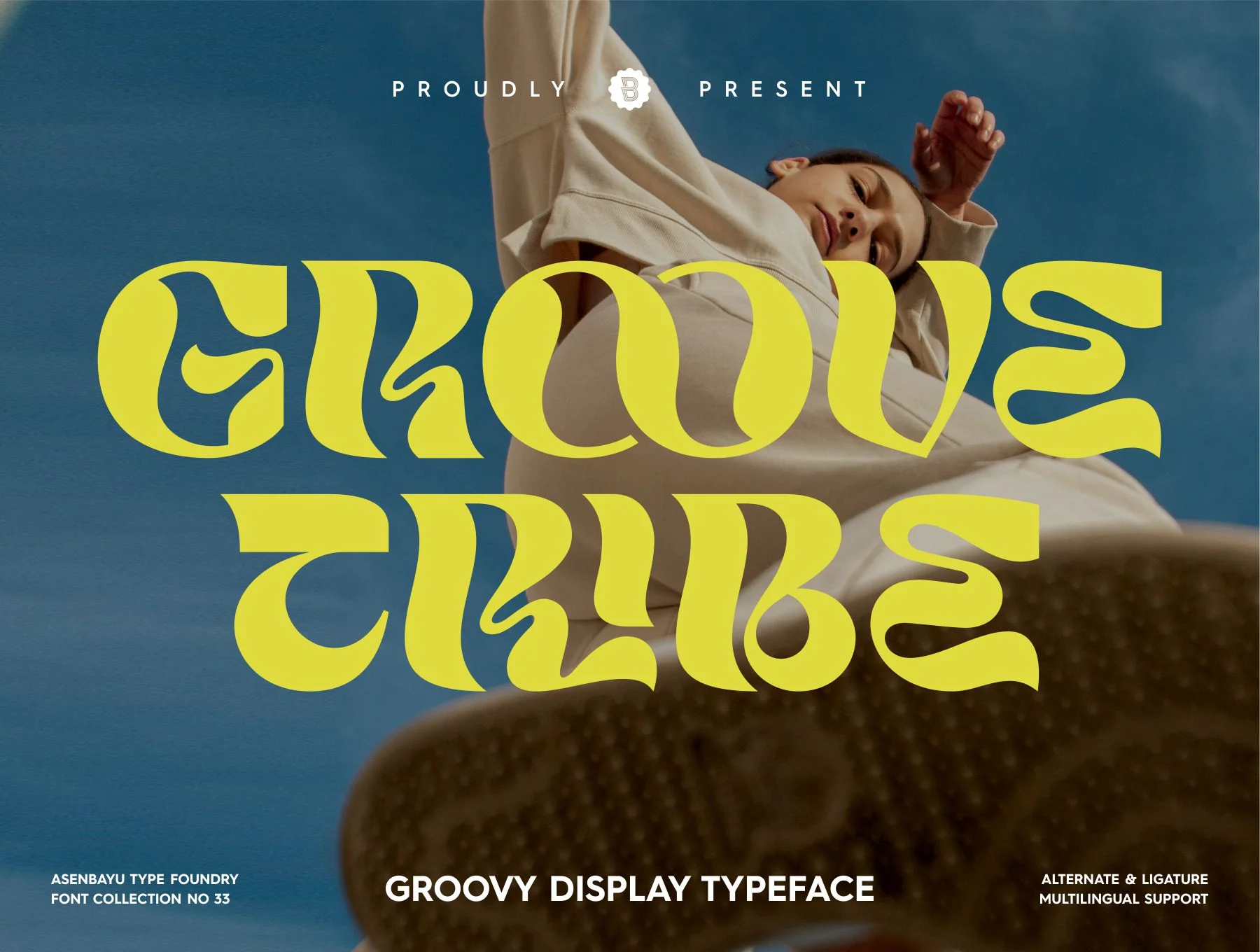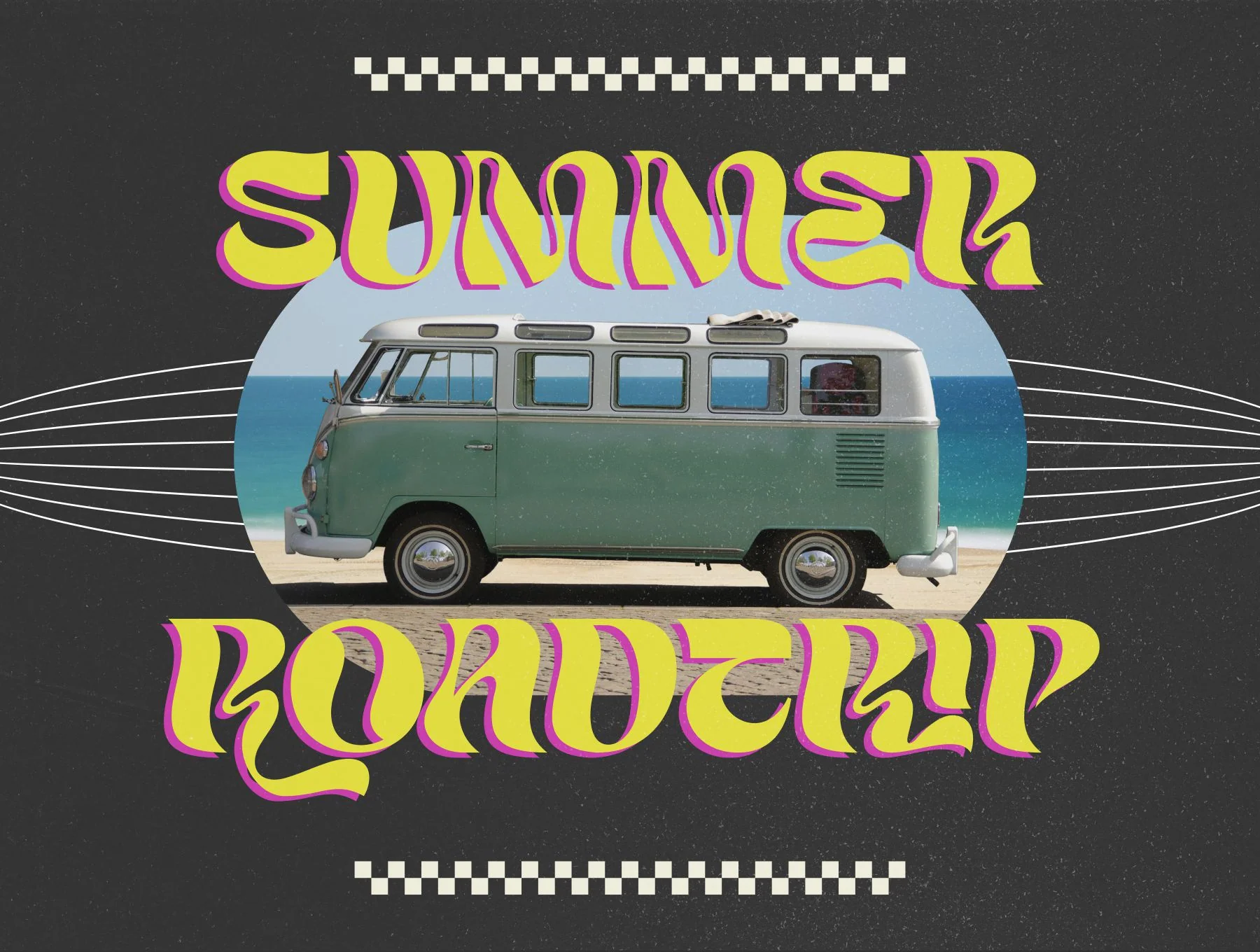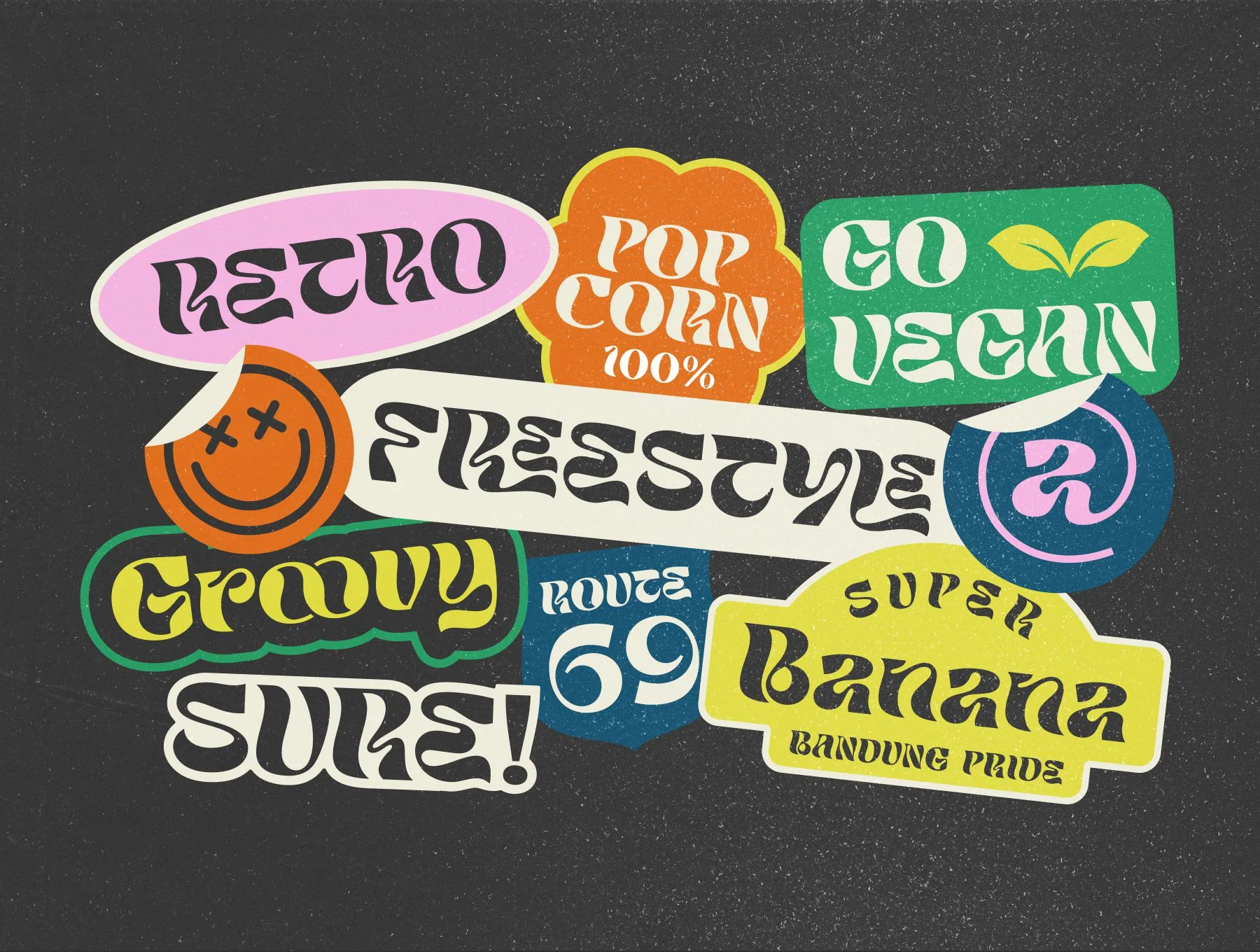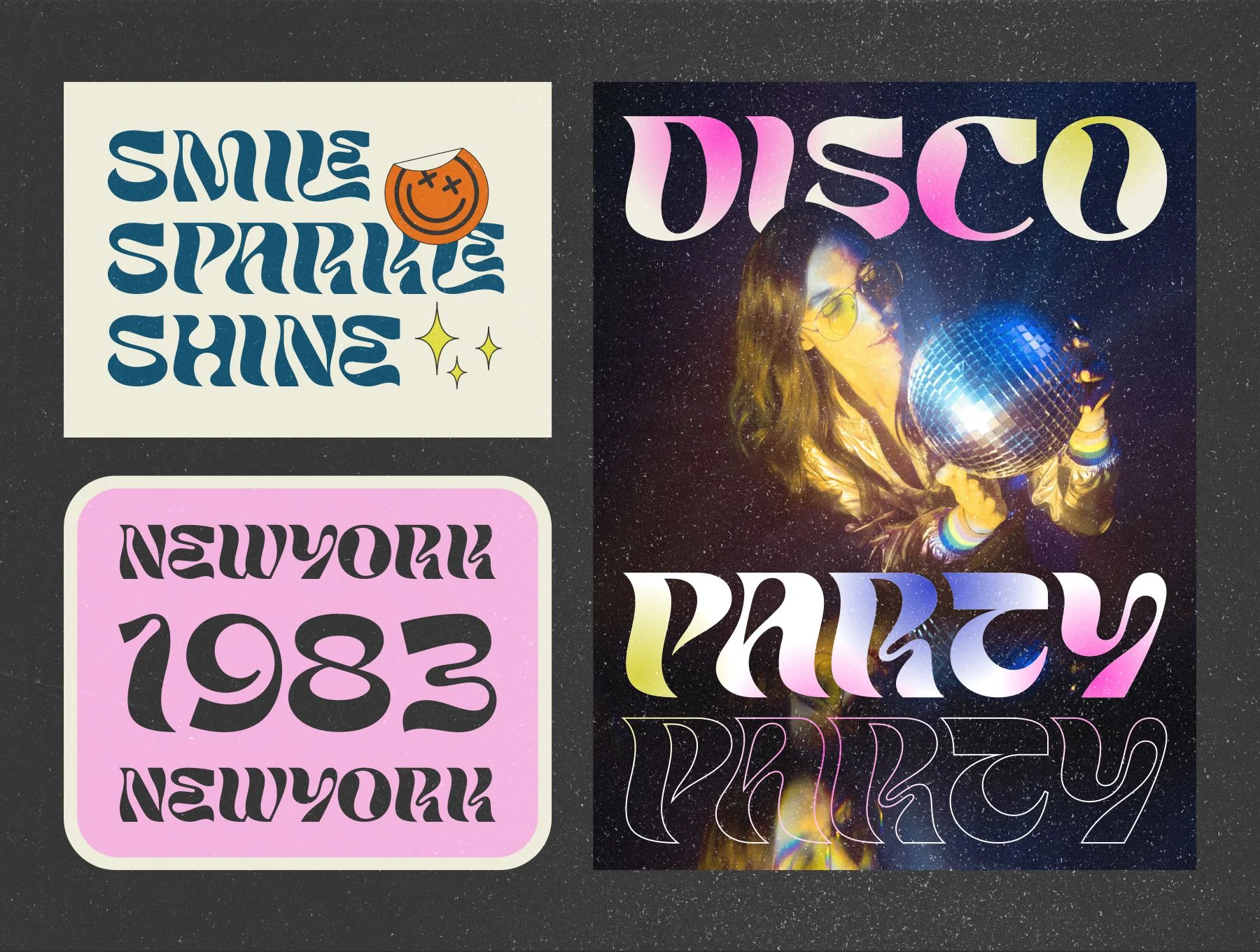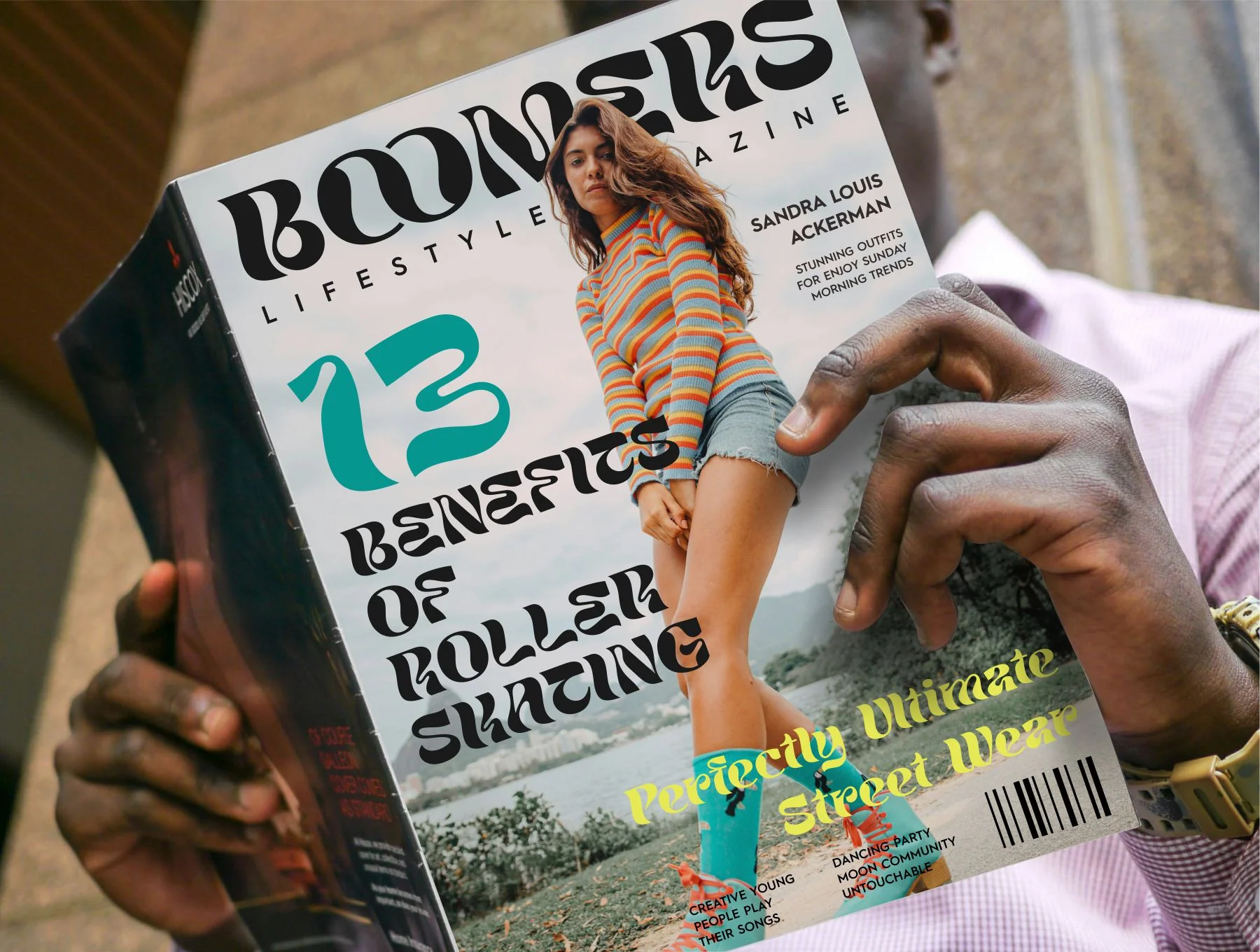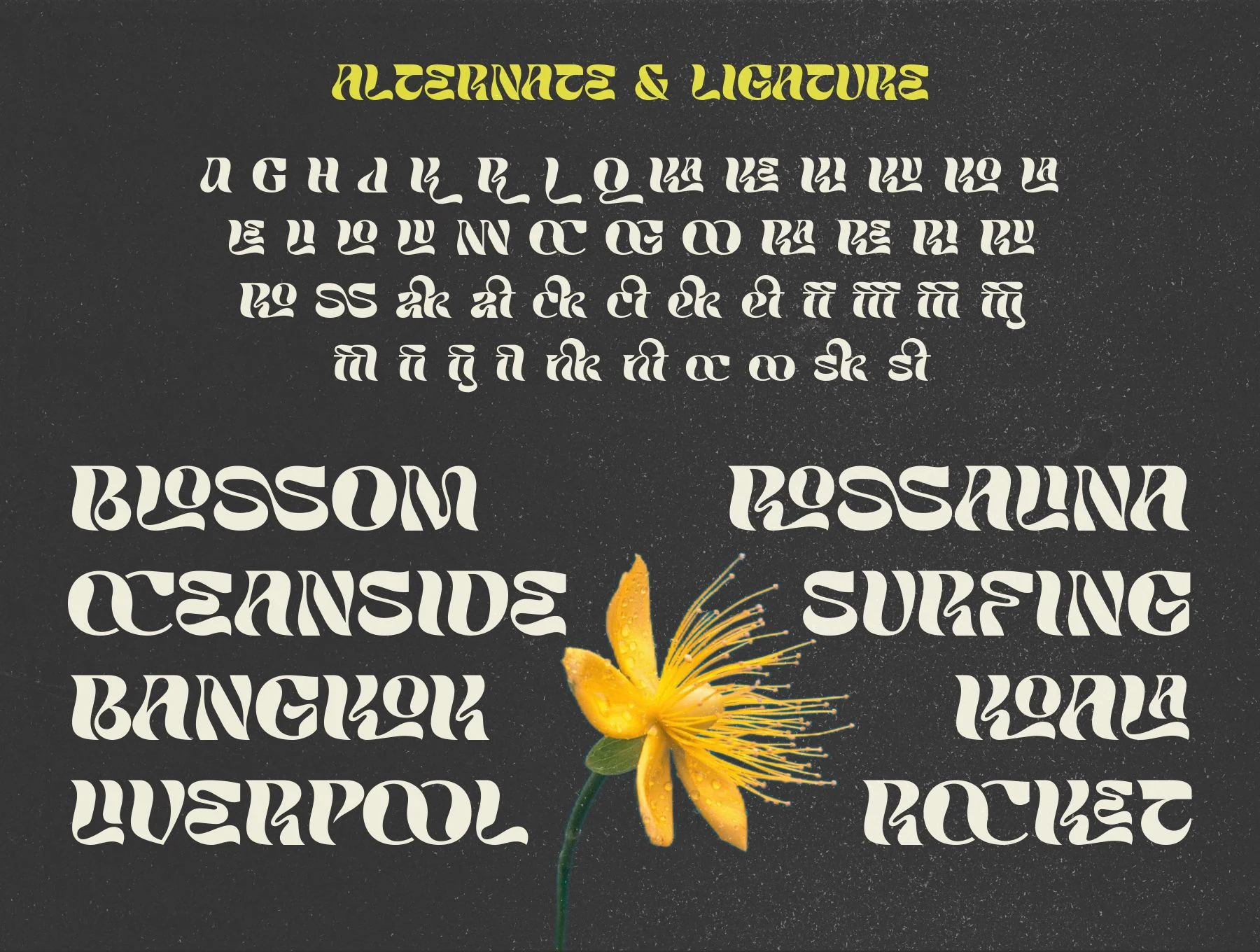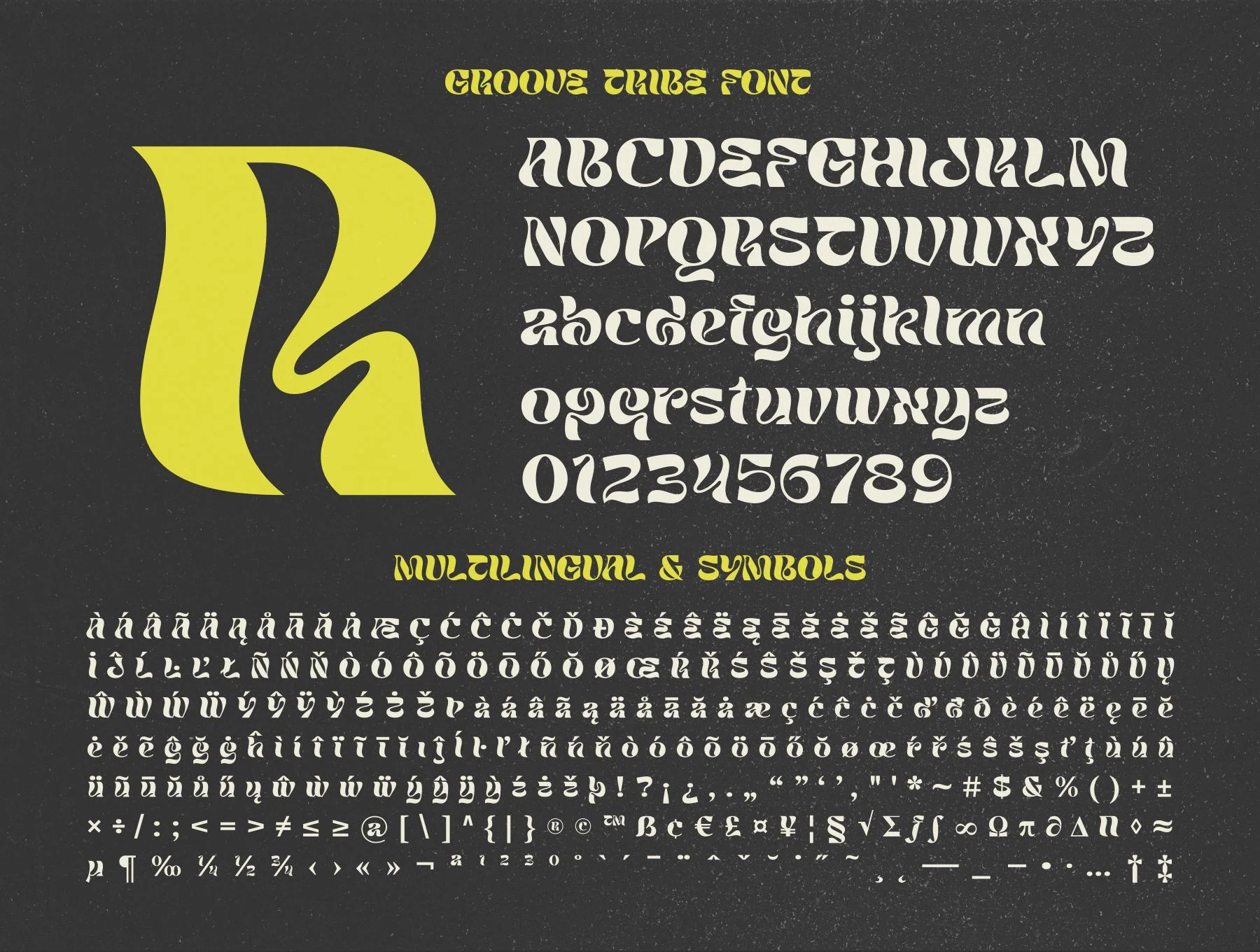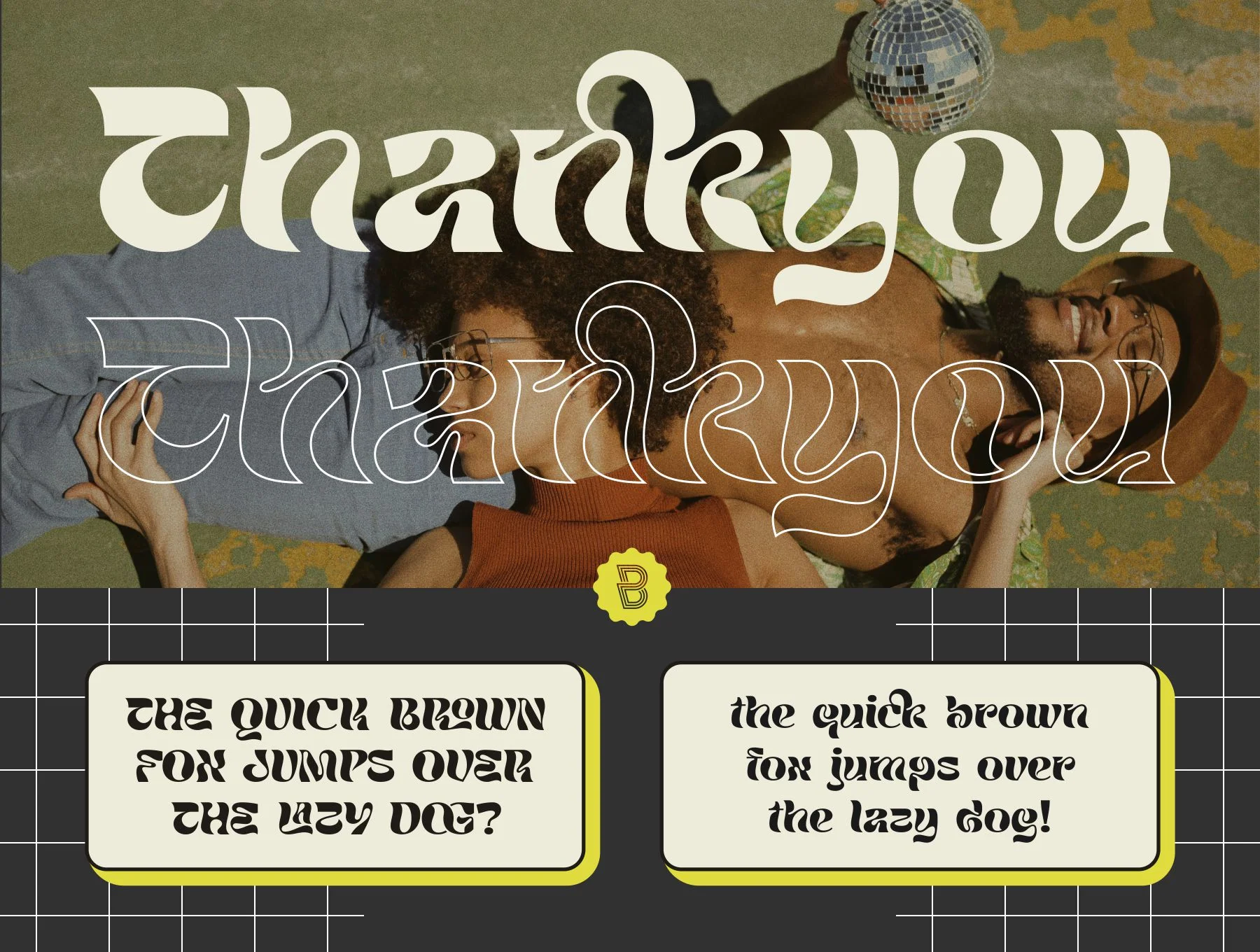
Groove Tribe Font
Funky display typeface
Regular glyph set
Ligatures and stylistic variations
Supports numerous languages
Groove Tribe is a bold, flowing display typeface with a funky, youthful vibe. Its modern retro look works well for eye-catching logos, standout posters, distinctive social media graphics, fashion branding, and website designs.